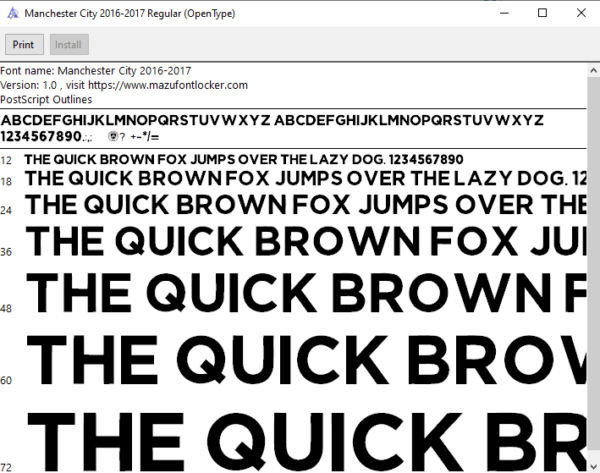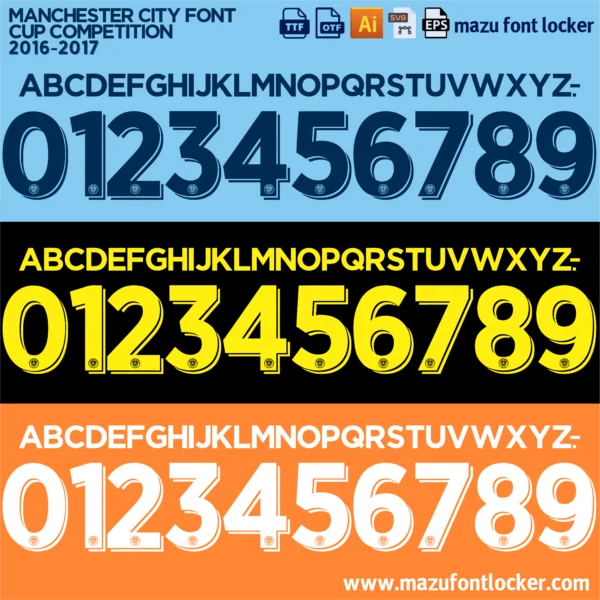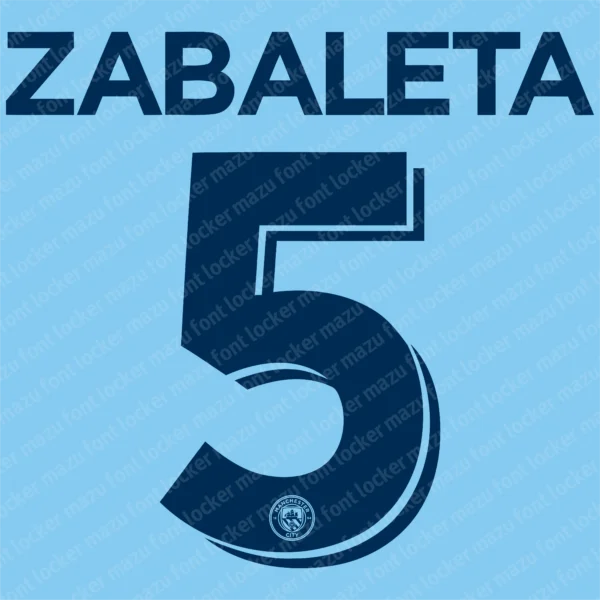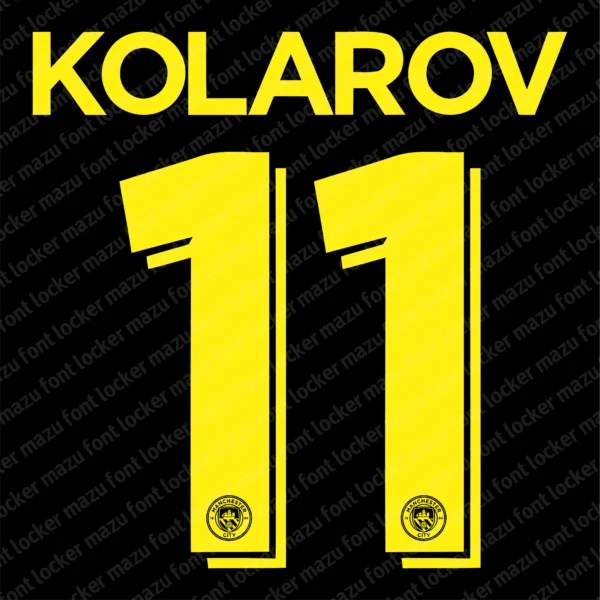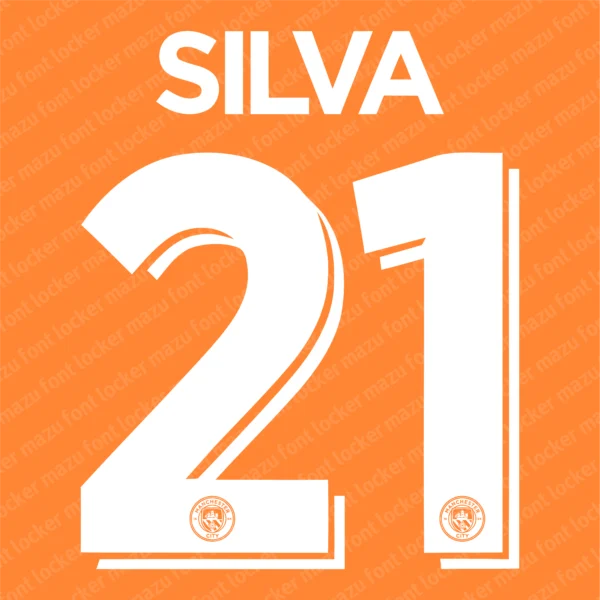
Manchester City 2016-2017 Font Vector – Legendary Sky Blues Triumph Masterpiece
This premium font captures the commanding, iconic, majestic, and battle-ready lettering that embodies the unstoppable City spirit — delivering raw Manchester passion, explosive winning energy, relentless never-say-die mentality, tactical supremacy, and legendary sky-blue phoenix grit.
Manchester City 2016-2017 Font Vector – Authentic Manchester City Typeface
The Manchester City 2016-2017 Font Vector is a premium typeface that accurately recreates the official match lettering worn by Manchester City FC during the 2016-2017 season. This high-quality vector font kit captures the bold, modern, and clean typography that represents the rich heritage, ambition, and sky blue pride of the club.
Designed for professional designers and passionate Manchester City fans, the Manchester City 2016-2017 Font Vector delivers perfect authenticity for creating realistic jersey mockups, fan merchandise, matchday posters, social media graphics, and Premier League content. It pairs beautifully with the iconic sky blue home kit featuring the famous Manchester City crest.
Why Choose Manchester City 2016-2017 Font Vector
This font stands out because of its sharp vector precision and strong club identity. Every letter and number is crafted to match the exact style used on the players’ shirts during the 2016-2017 season. Whether you are making realistic kit templates or exciting Manchester City content, the Manchester City 2016-2017 Font Vector gives your designs that authentic sky blue look.
The letterforms in the Manchester City 2016-2017 Font Vector are tall, bold, and highly readable. The strokes have a strong, clean weight with excellent edge definition that looks powerful on the back of jerseys while maintaining classic English football heritage and modern sporting elegance.
• Full uppercase A–Z and numbers 0–9 in authentic Manchester City 2016-2017 style
• Create highly realistic Manchester City 2016-2017 home and away jersey mockups with accurate lettering
• Produce custom Manchester City merchandise with the 2016-2017 aesthetic
Manchester City 2016-2017 Campaign
The 2016-2017 season was a landmark campaign for Manchester City FC under the management of Pep Guardiola. The Citizens delivered exciting, attacking football that showcased tactical innovation, technical brilliance, and a never-ending drive for success. The team produced memorable performances in the Premier League and European competitions, further cementing Manchester City’s status as one of the top clubs in English and European football.
Star players and rising talents combined to create unforgettable moments that united fans across Manchester and the global City community.
The Manchester City 2016-2017 Font Vector is an independently designed typeface package. It is carefully crafted to replicate the official shirt lettering style of the 2016-2017 season. This font kit is perfect for creative projects, fan edits, nostalgic jersey designs, and custom football graphics.